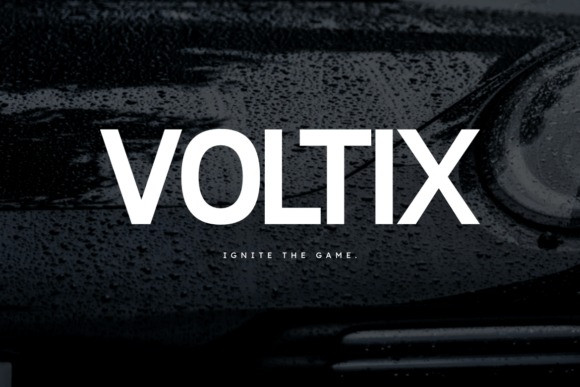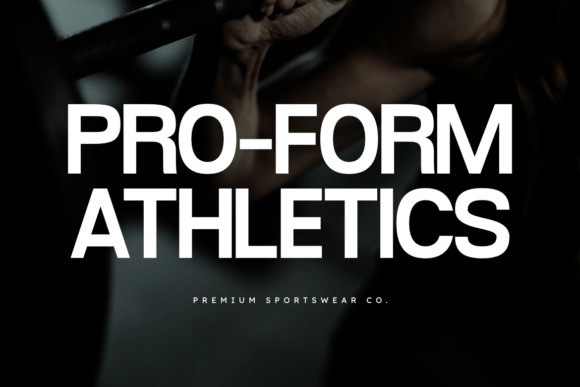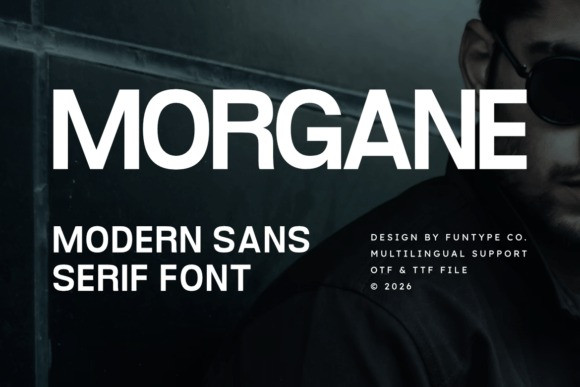
Morgane Font
Morgane Font is a bold and powerful modern sans serif font designed for high-impact and precise typography. With its refined solid structure and clean, geometric lines, this font is perfect for strong headlines, professional corporate branding, fashion logos, and high-impact digital posters. Its confident and balanced design gives your visuals a striking, professional, and advanced look. Provided in OTF and TTF formats with full multilingual support for maximum compatibility across all design platforms.